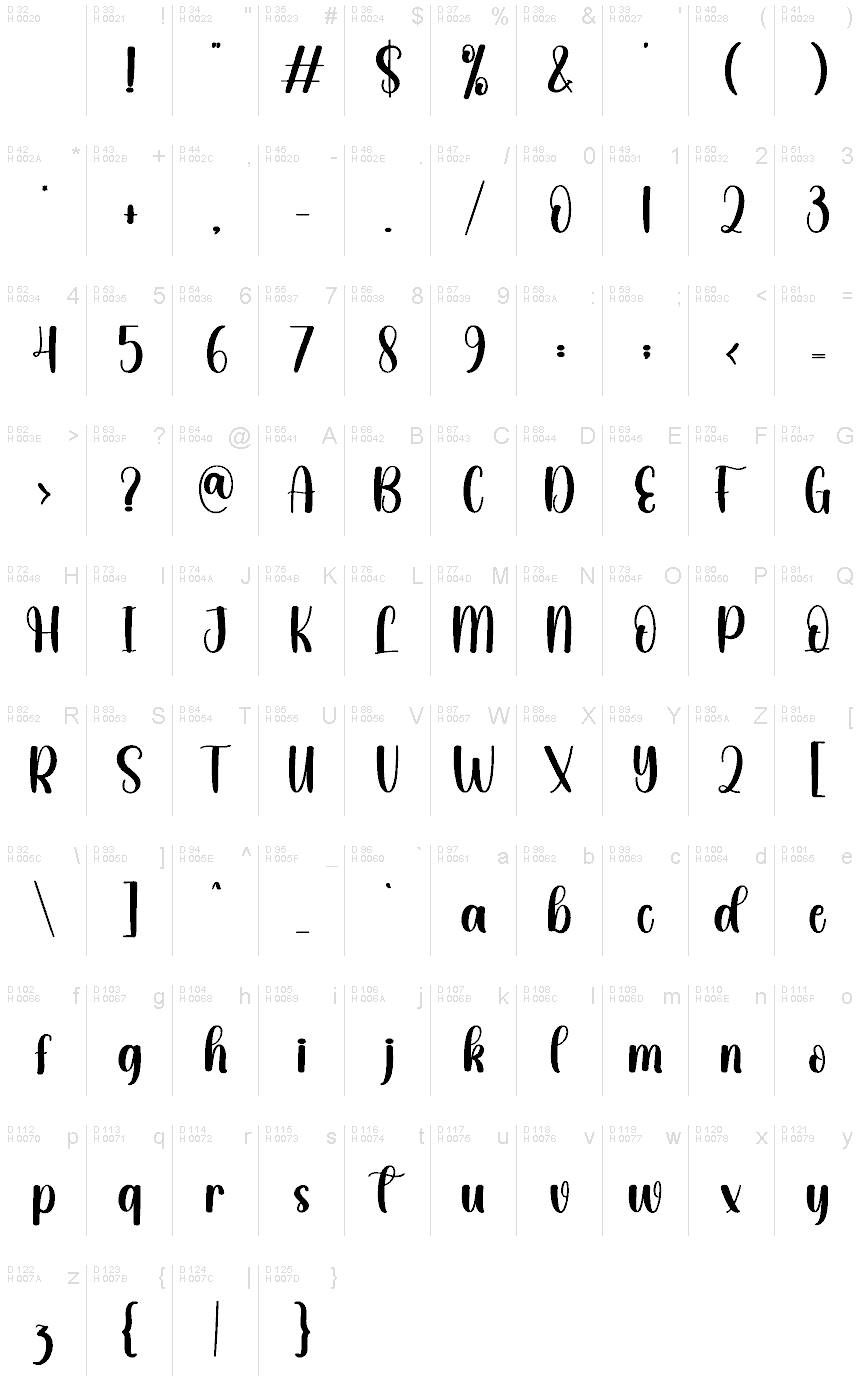
Sugarberry
Sugarberry font is a flowing handwritten font by Scratchones. Its elegant and smooth letters reflect a modern script style with casual elegance. Its style is relaxed and delivers an inviting mood within any design.